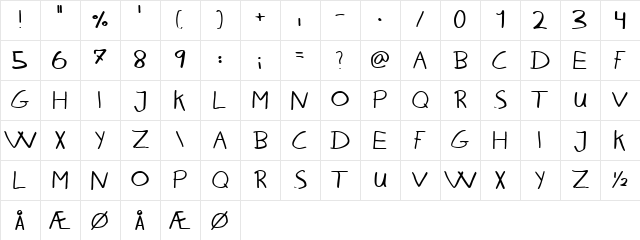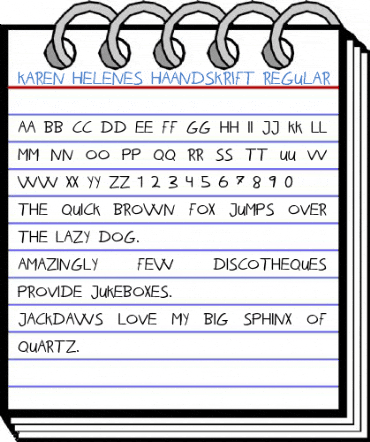
Karen Helenes haandskrift Regular
Design Context for Karen Helenes haandskrift
Karen Helenes haandskrift is a composed and adaptable typeface that performs quietly and consistently across a wide range of design contexts.